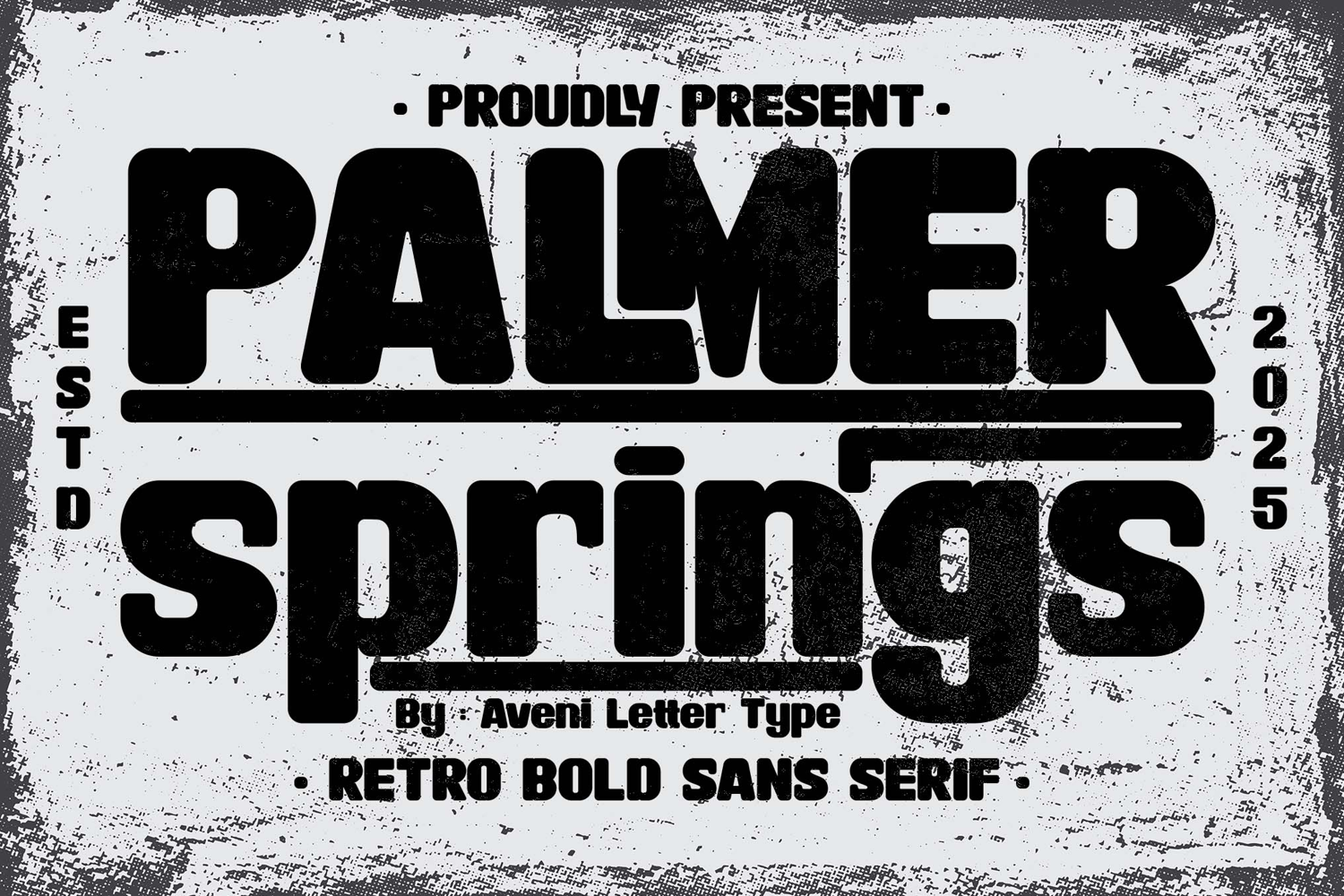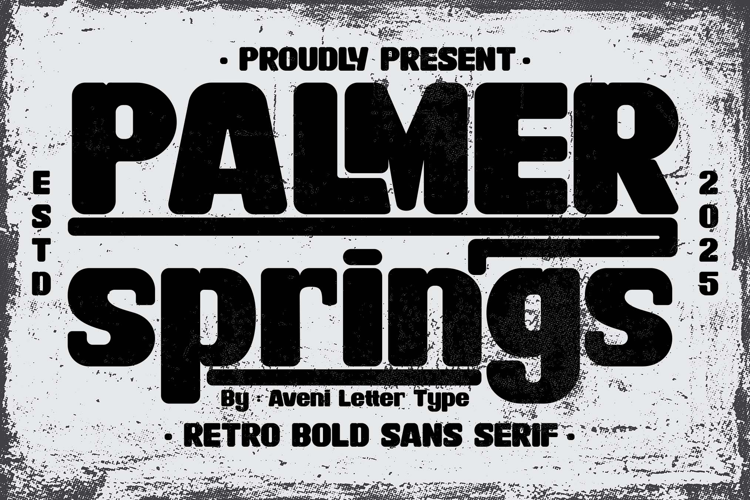
Palmer Springs
Hello, ladies and gentlemen. Introducing the Palmer Springs font. This bold, modern sans-serif font features a touch of retro elegance. Palmer Springs has been meticulously processed, complemented by optional ligatures and swashes for a retro yet elegant feel, making it easy to use in a variety of your projects.
Of course, the Palmer Springs font is highly Instagrammable and features a wealth of features, making it suitable for use in a variety of projects, such as corporate branding, logos, product branding, crafts, wedding invitations, business cards, your business signage, letterheads, and more.
Here I give a little way to use swashes in the Palmer Springs font:
Use multiple underscores __0, __1, __2 to create swashes of different lengths.
Example: PALM__0ER__2 sprin__0g
It should be noted that the SWASH in the Palmer Springs font can be used when the standard ligature feature is active in your design software.